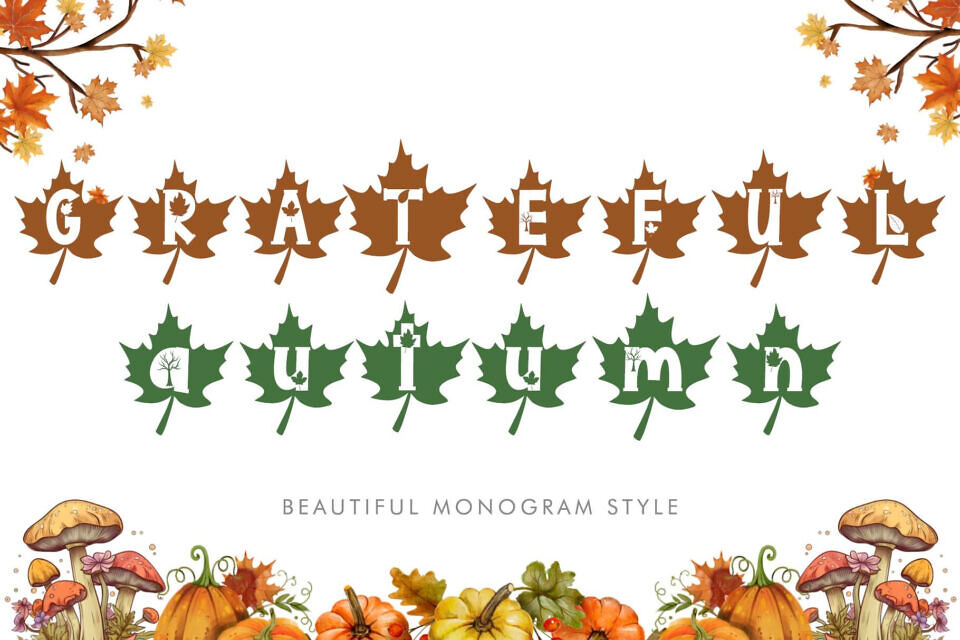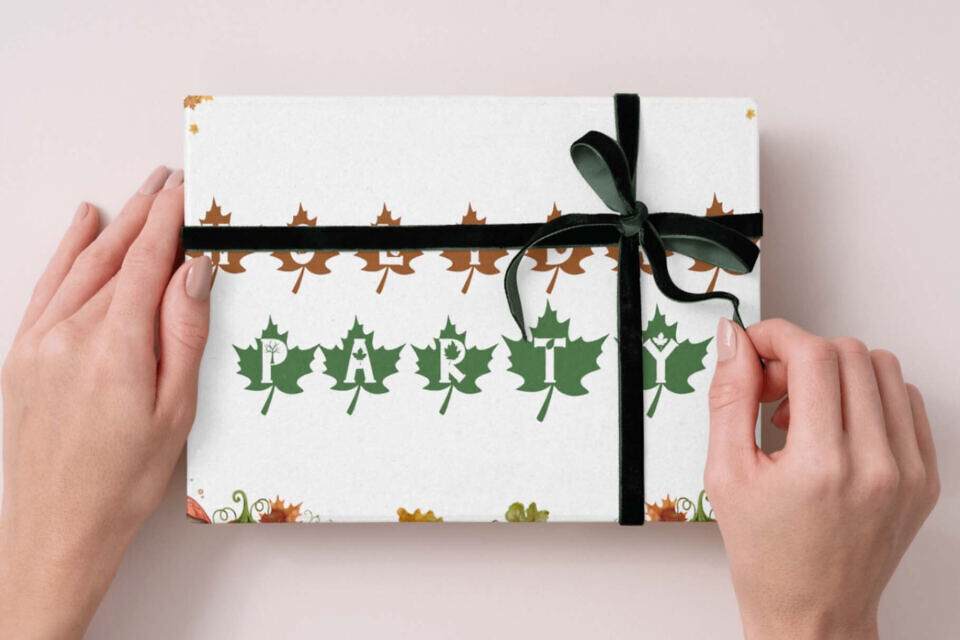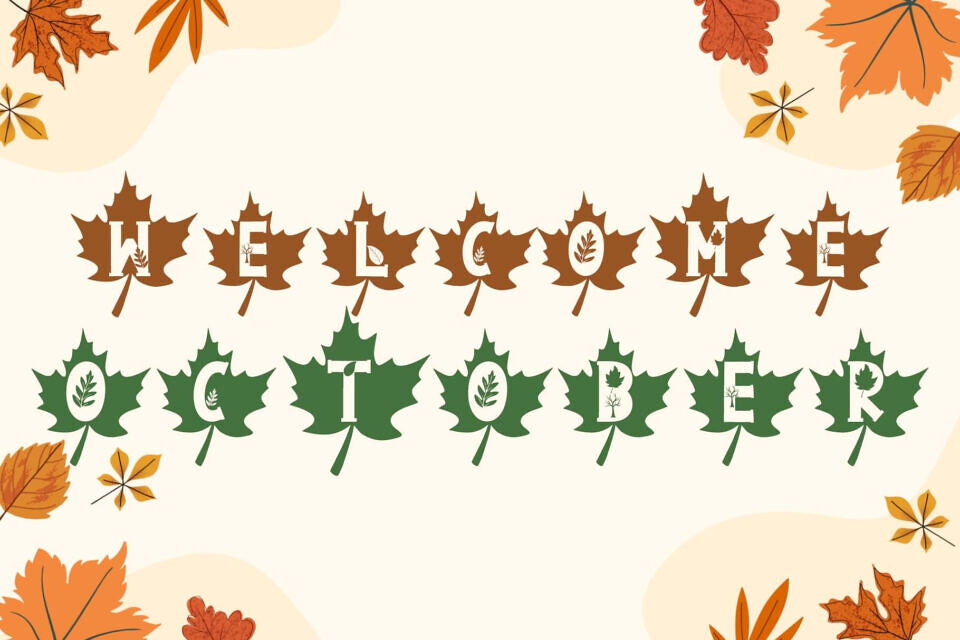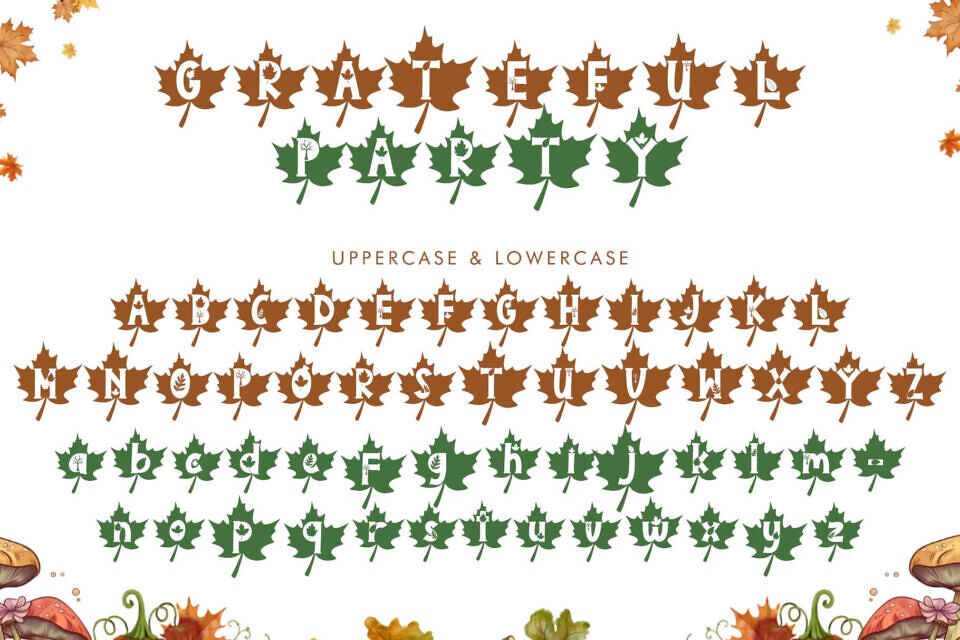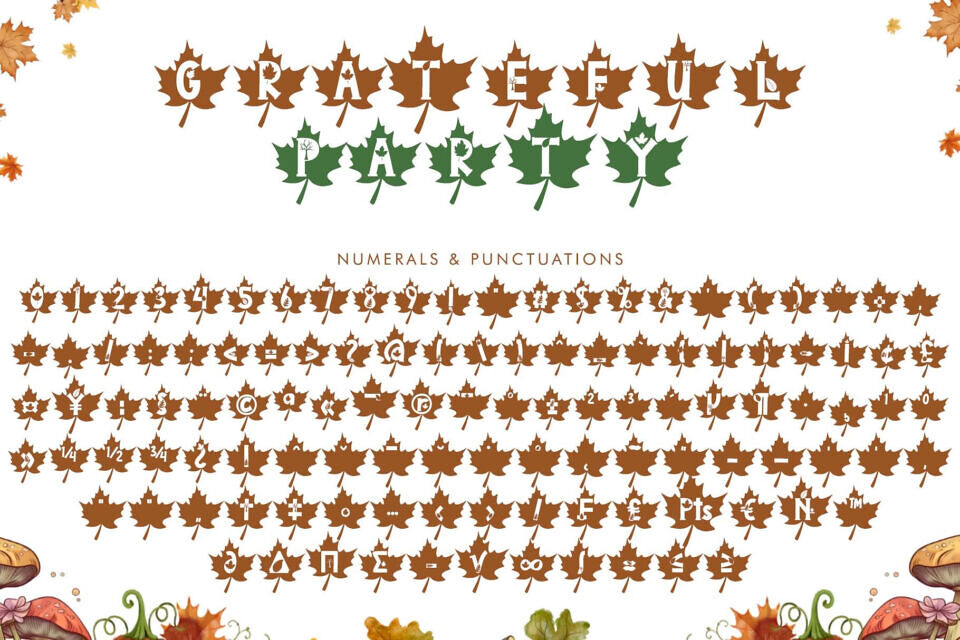
Grateful Autumn is a unique and beautiful autumn monogram font. It features uppercase and lowercase letters, numerals, punctuation, and multilingual support. It’s perfect for logos, Christmas, fall, and autumn, stickers, banners, branding, prints, Halloween, winter, Thanksgiving, holidays, Valentine’s Day, sublimation, spring, Easter, and summer, among other uses.